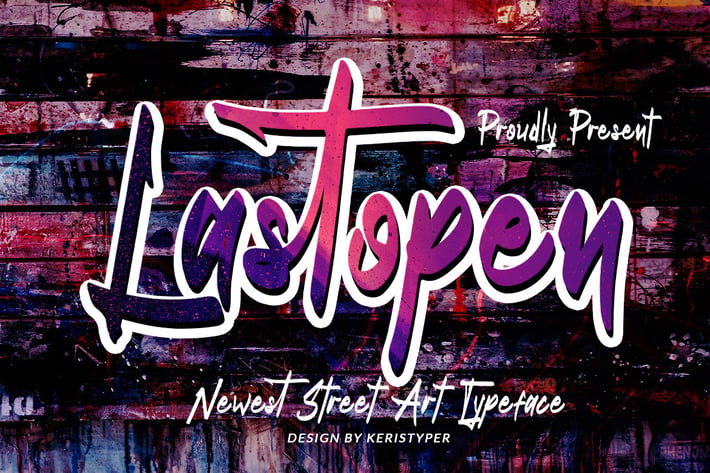
Lastopen Font
Lastopen is a graffiti street style font that looks marvelous and perfect for mural effect creation. This font is perfect for branding projects, logos, wedding designs, social media posts, advertisements, product packaging, product designs, label, photography, watermark, invitation, stationery, and any projects that need handwriting taste.
-Standard Uppercase & Lowercase
-Numeral & Punctuation
-Multilingual : ä ö ü Ä Ö Ü ß ¿ ¡
-Alternate & Ligature